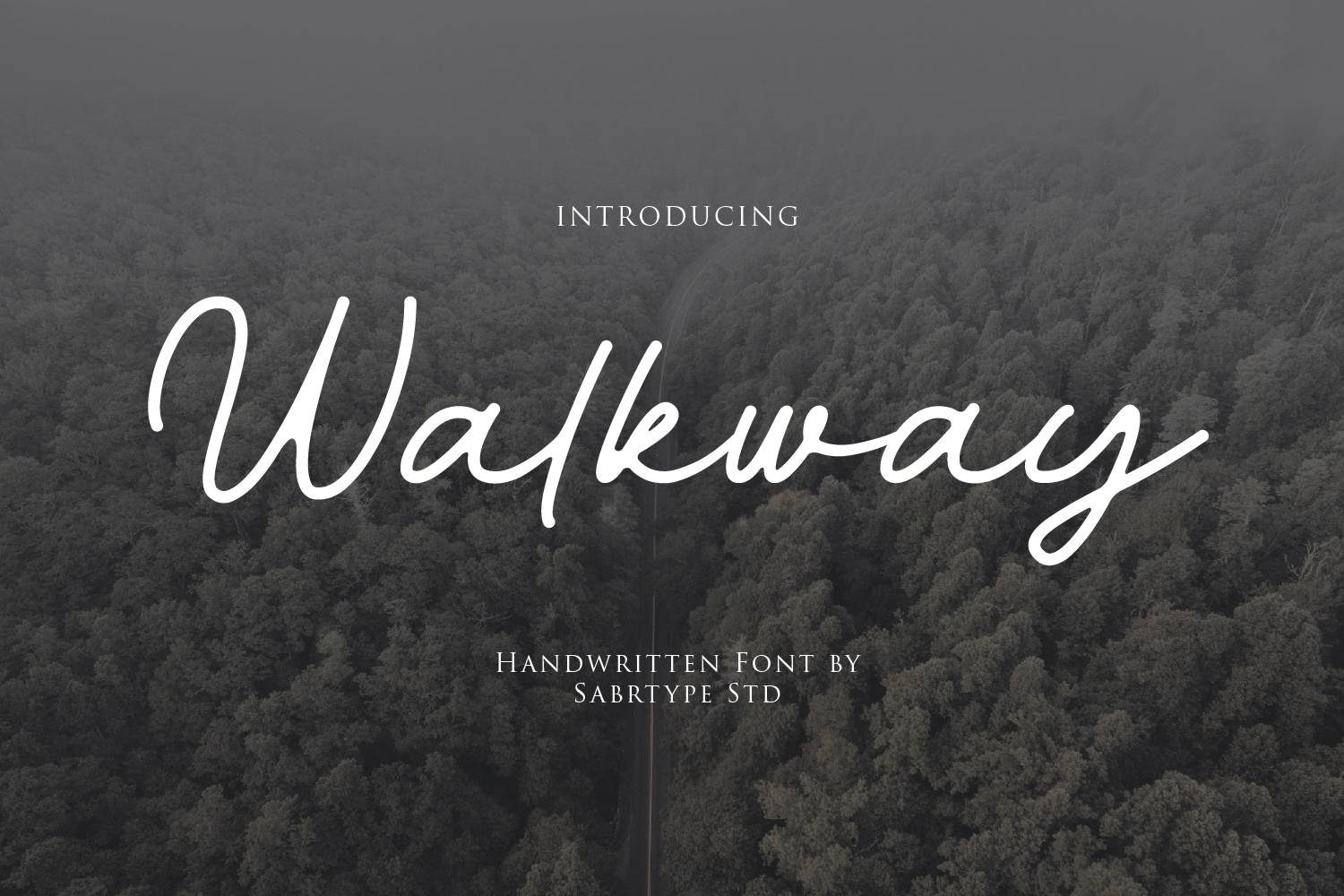
Walkway is a casual, handwritten script font that features a light weight with a slightly condensed width and a tall x-height, giving it a lively and approachable feel. Its flowing, rounded strokes and balanced letterforms make it ideal for designs seeking a personal, friendly touch without sacrificing readability. This font works wonderfully in invitations, branding, and creative projects where warmth and informality are desired.
Walkway Font
About Walkway Font